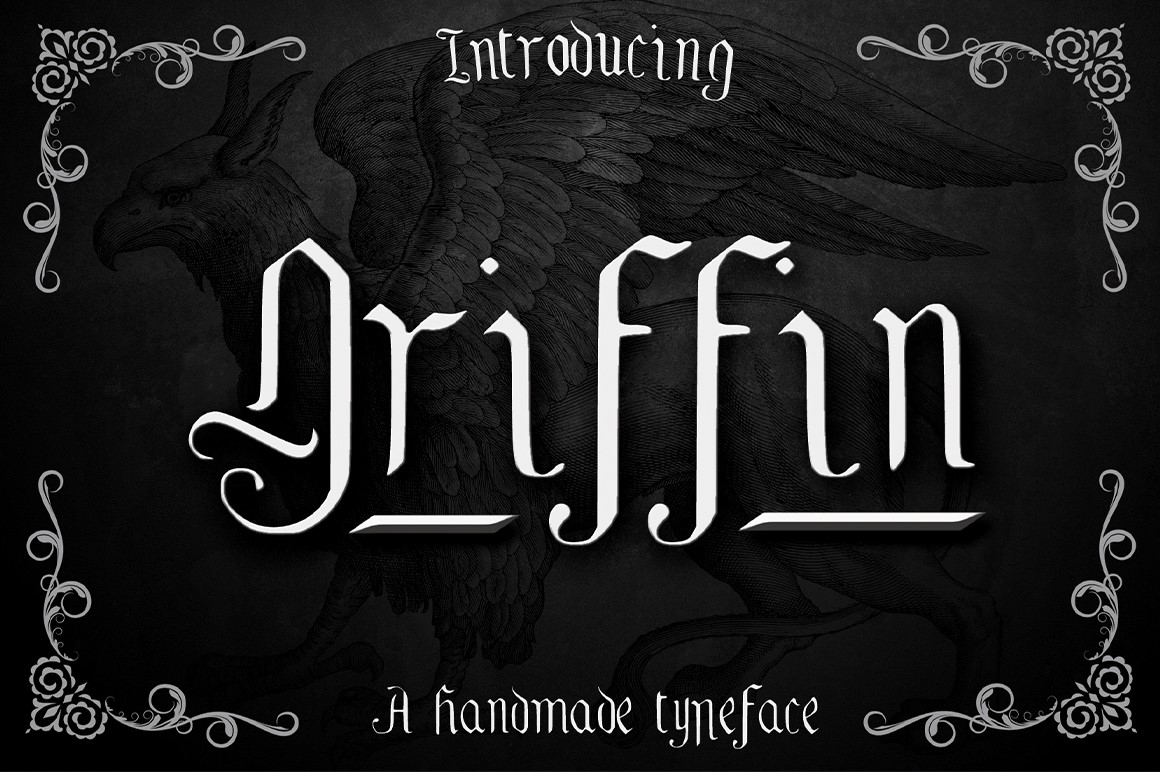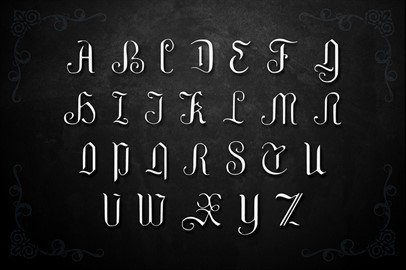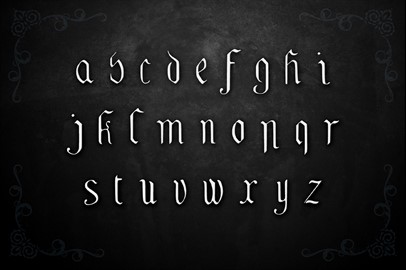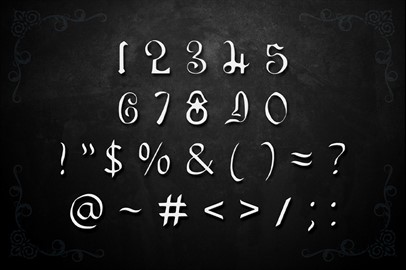
GRIFFIN, a Blackletter Typeface
GRIFFIN is a 16th-century typeface
that has been hand drawn and turned into a font to give you a very authentic handwritten feel from the past into your projects. Comes with
upper, lowercase, basic characters, numbers, marks, and punctuation
. This style is now mostly used for decorative purposes, for example, to evoke an old word classical feel. It can also be used to evoke a heavy metal feeling.